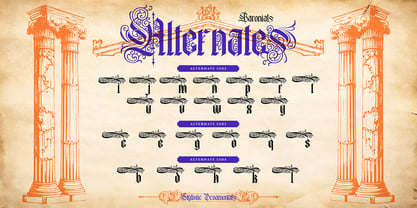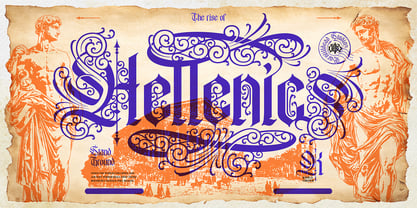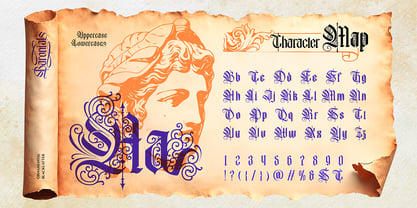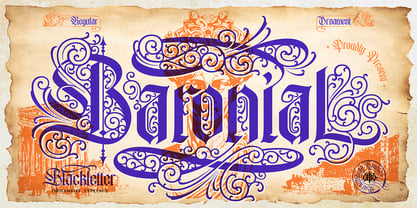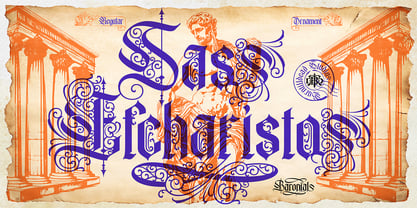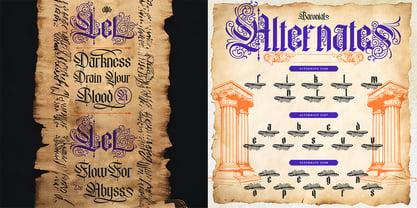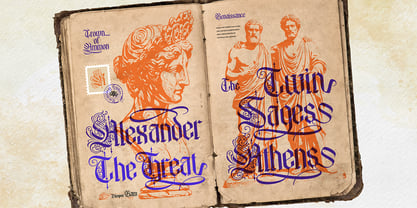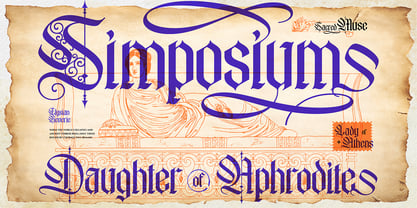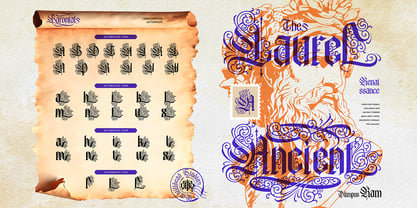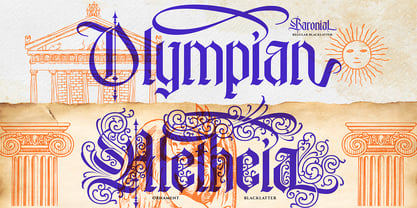
Baronial
by Burntilldead
The Baronial Font Family was designed by Eric Kurniawan and published by Burntilldead. Baronial contains 2 styles and family package options. More about this family
Baronial is a bold and decorative blackletter typeface inspired by medieval manuscripts, classical sculptures, and the grandeur of ancient empires. Designed with intricate ornamental details, this font blends traditional gothic lettering with elegant swirling flourishes to create a truly majestic look. Every character in Baronial carries a strong historical atmosphere, making it perfect for designs that need a powerful, dramatic, and vintage feel. The ornamented style gives your typography a royal and artistic touch while still keeping the letters readable and balanced. Baronial comes with two styles: Regular and Ornament, allowing you to easily switch between a clean blackletter look and a more decorative version with beautiful flourishes. This font works beautifully for projects that need a classic, historical, or luxurious aesthetic, such as branding, posters, album covers, book titles, packaging, tattoo designs, medieval-themed projects, and editorial layouts.